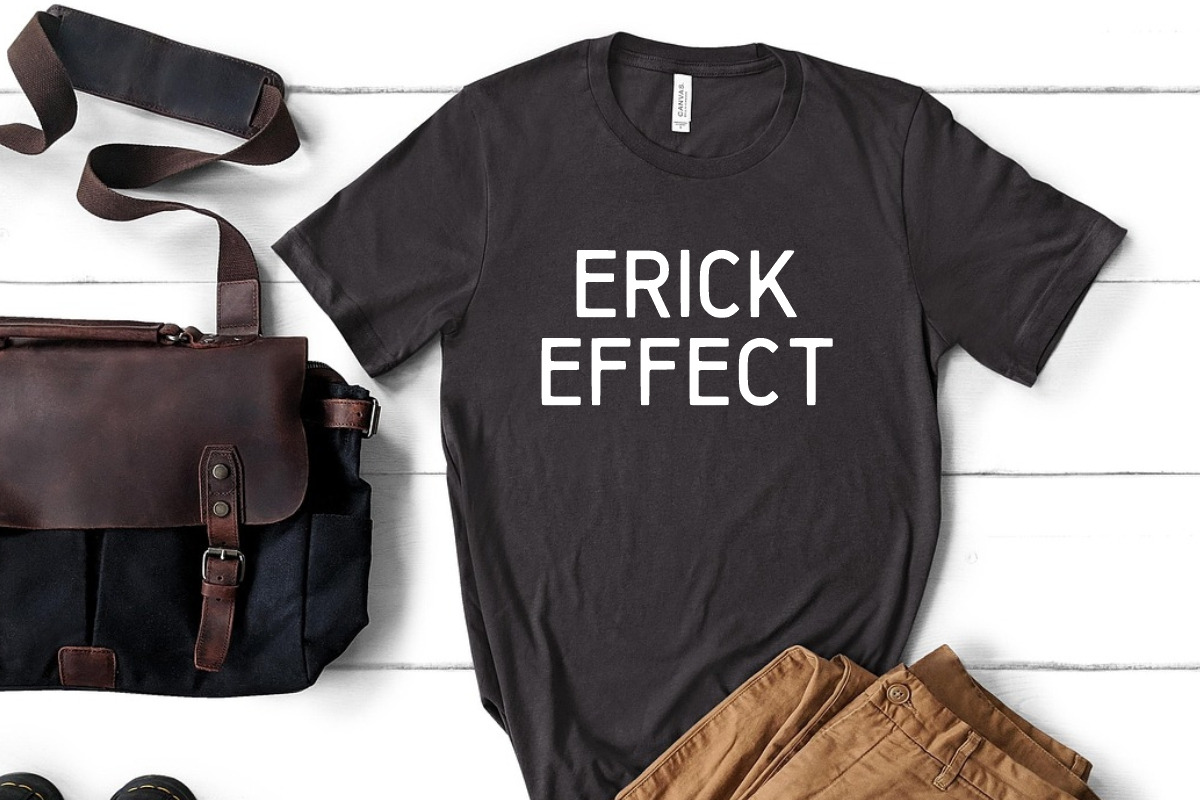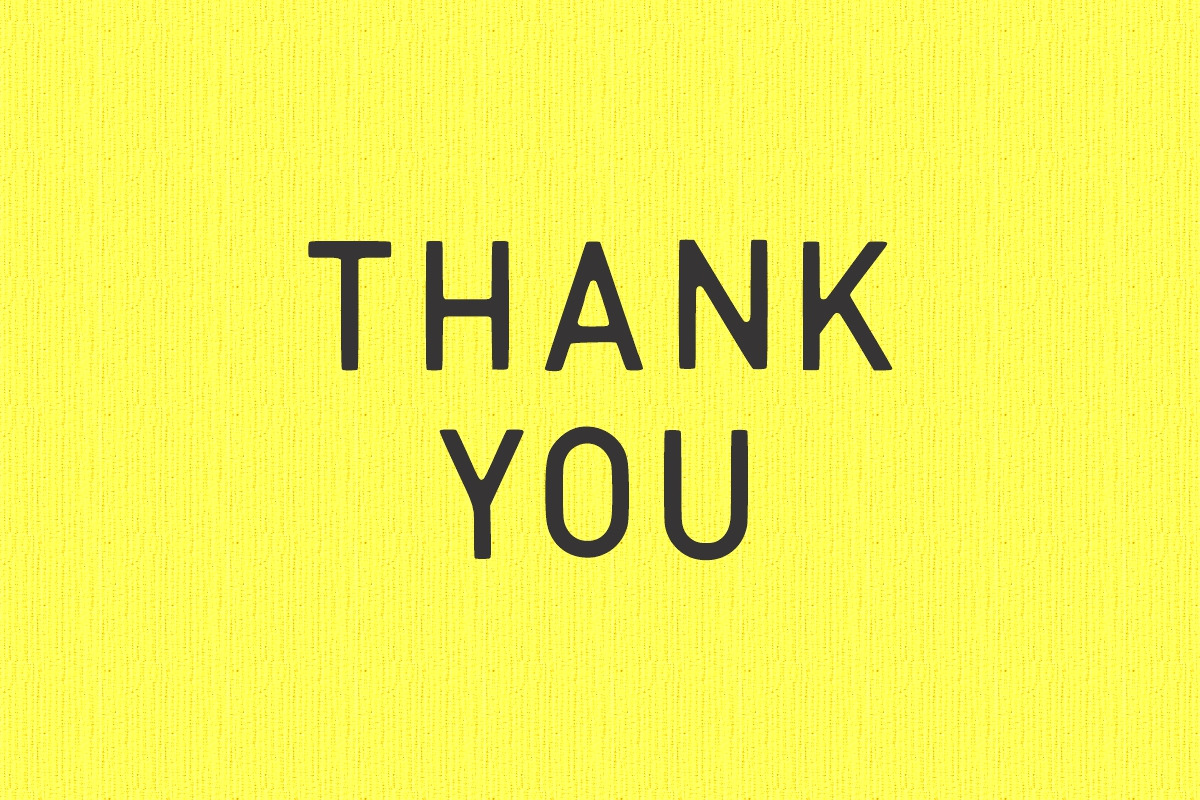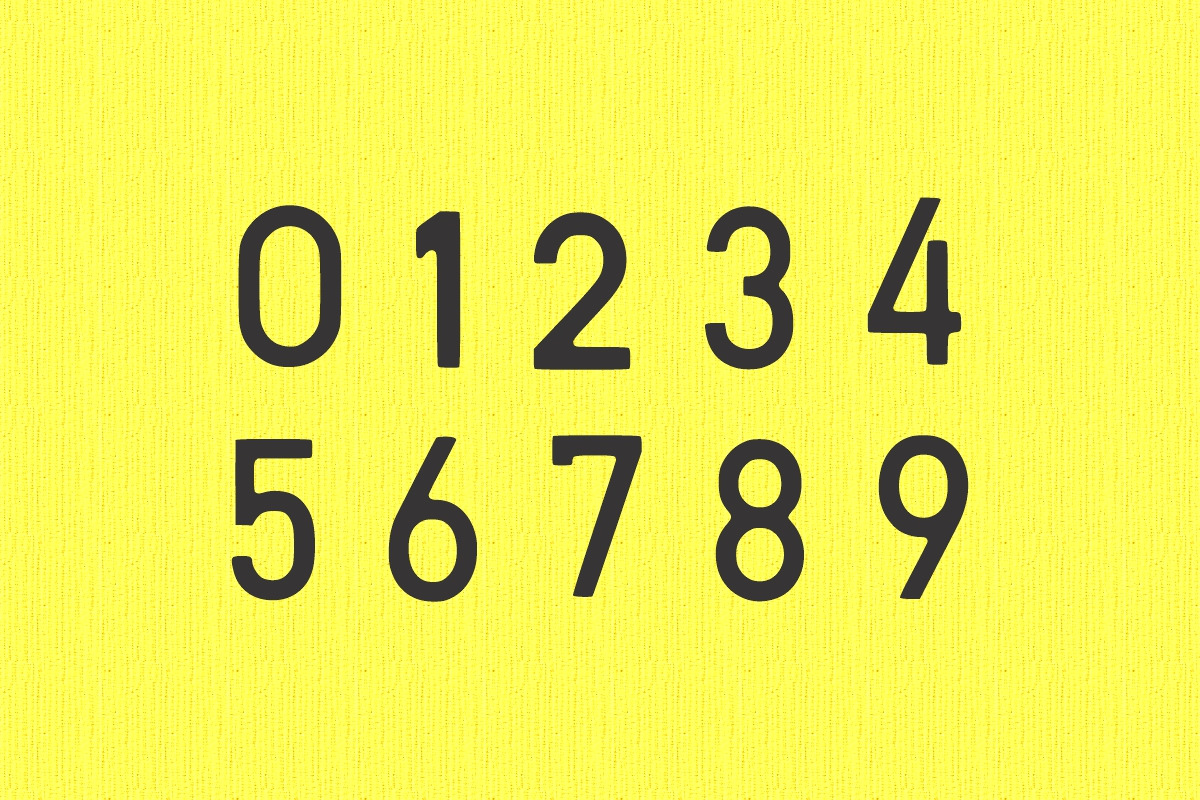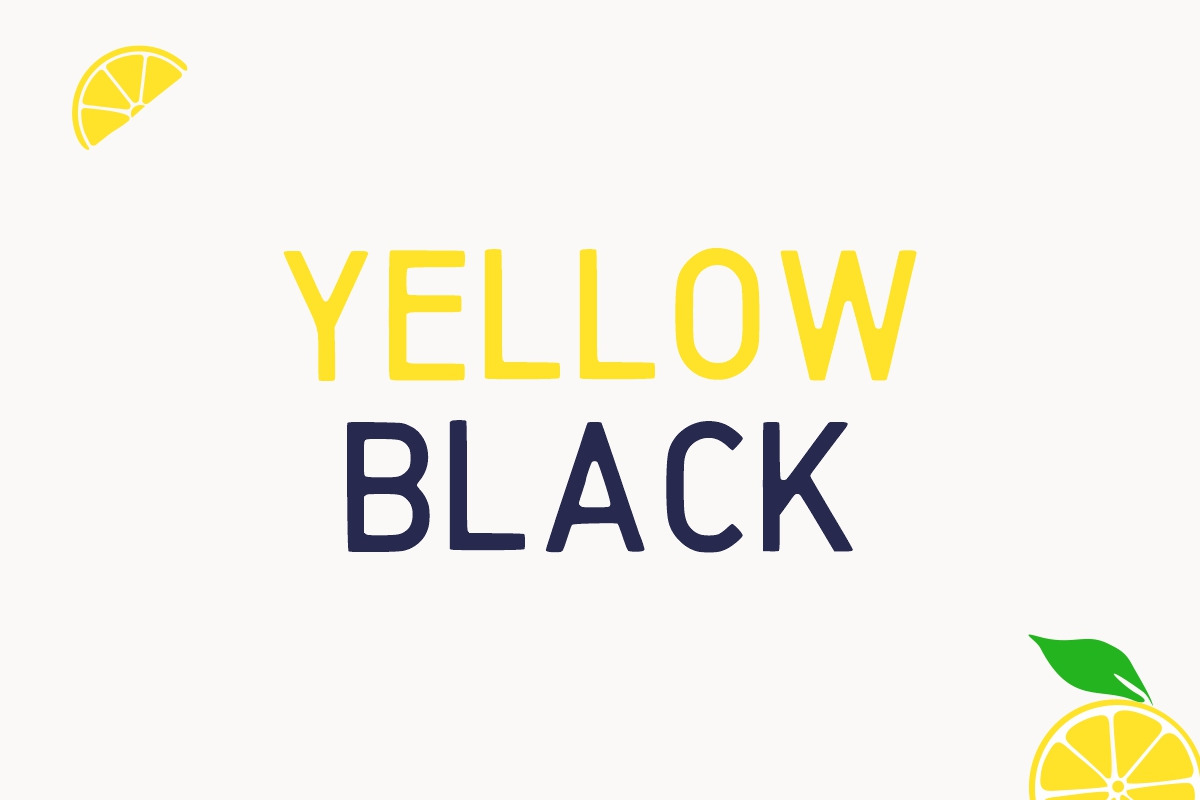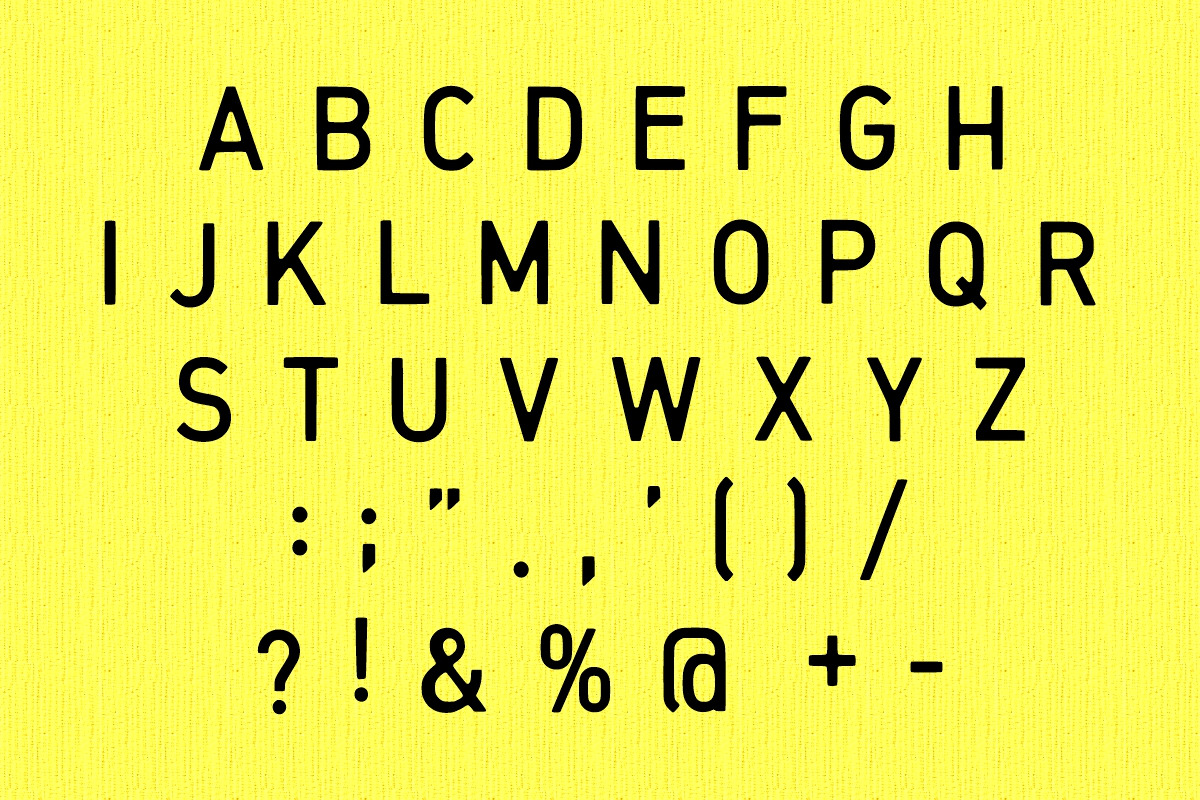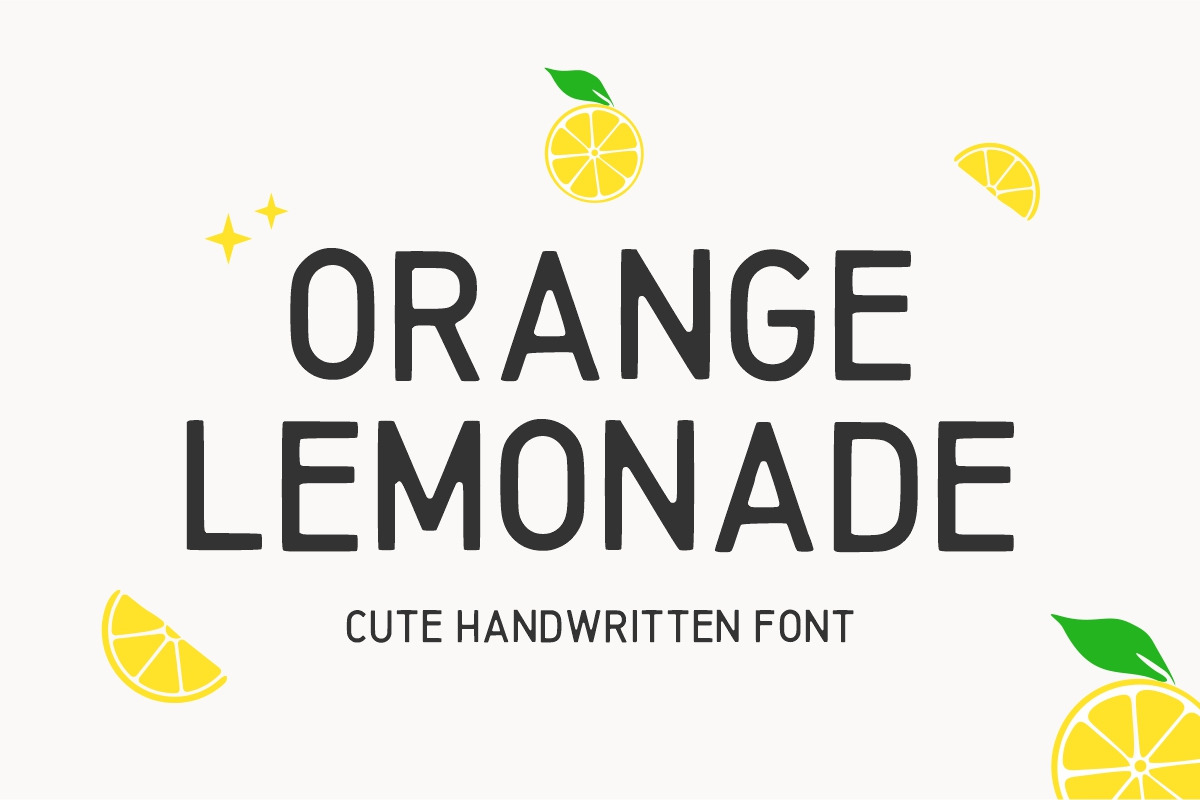
Orange Lemonade minimalist font
Orange Lemonade is a cute, simple elegant hand written font. Its informal style and casual vibe will make this font a go-to choice for each of your creations that require a relaxed touch. It is suitable for any product packaging, invitation, quote, t-shirt, label, poster, or logo that you wish to develop!